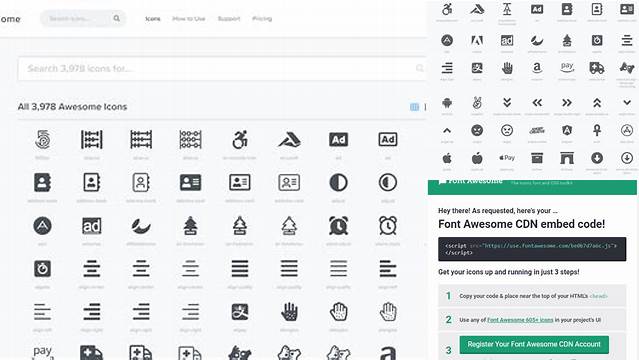
Font Awesome 5.11.2 CDN: Quick Setup Guide
Hey everyone! Are you looking to spice up your website with awesome icons? Font Awesome Free 5.11.2 CDN is a fantastic way to do just that. Using a Content Delivery Network (CDN) means you don't have to host the Font Awesome files yourself, making your site faster and more efficient. In this article, we'll dive deep into everything you need to know about using Font Awesome Free 5.11.2 CDN, from the basics to more advanced tips and tricks. Let’s get started!
What is Font Awesome?
Font Awesome is basically a huge library of scalable vector icons that you can customize with CSS. Think of it as a massive toolbox filled with visual goodies that make your website look professional and polished. These icons are super versatile – you can change their size, color, add shadows, and do a whole lot more. It’s a must-have for web developers, and the free version packs a serious punch!
Implementing Font Awesome Icons
Once you have the CDN link in place, implementing Font Awesome icons is a piece of cake. Just use the <i> tag with the appropriate class names. The first class name (e.g., fas, fab, far) specifies the icon style (Solid, Brands, Regular), and the second class name specifies the actual icon (e.g., fa-home, fa-user, fa-cog). For example, to display a solid user icon, you would use:
Customizing Font Awesome Icons with CSS
One of the coolest things about Font Awesome is how easily you can customize the icons with CSS. You can change their size, color, rotation, and even add animations. To change the size of an icon, you can use the fa-xs, fa-sm, fa-lg, fa-2x, fa-3x, fa-4x, fa-5x classes. For example:
<i class="fas fa-home fa-2x"></i>
This will display the home icon at twice the normal size. To change the color, you can use the color property in CSS:
<i class="fas fa-home" style="color: blue;"></i>
This will display the home icon in blue. You can also rotate icons using the fa-rotate-* classes or the transform: rotate() property in CSS. And if you want to add some fancy animations, you can use CSS animations or the built-in fa-spin class.
Even with a straightforward setup like Font Awesome CDN, you might run into a few snags. Here are some common issues and how to fix them. First, if your icons aren't displaying at all, double-check that you've included the CDN link correctly in your HTML file. Make sure the link is pointing to the correct version (5.11.2) and that there are no typos. Second, if some icons are displaying but others aren't, make sure you're using the correct class names for each icon. The Font Awesome documentation is your best friend here. Third, if your icons are displaying as squares or empty boxes, it could be a font loading issue. Try clearing your browser cache or using a different browser to see if that resolves the issue. If all else fails, check the CDN provider's status page to see if there are any known issues with their service.
Alternatives to Font Awesome
While Font Awesome is super popular and versatile, it's not the only icon library out there. There are several alternatives you might want to consider, depending on your needs. One popular alternative is Material Icons, which is designed to be used with Google's Material Design framework. Another option is Ionicons, which is specifically designed for mobile app development. And if you're looking for something a bit more minimalist, you might want to check out Feather Icons or Octicons. Each of these icon libraries has its own unique style and features, so it's worth exploring them to see which one best fits your project.